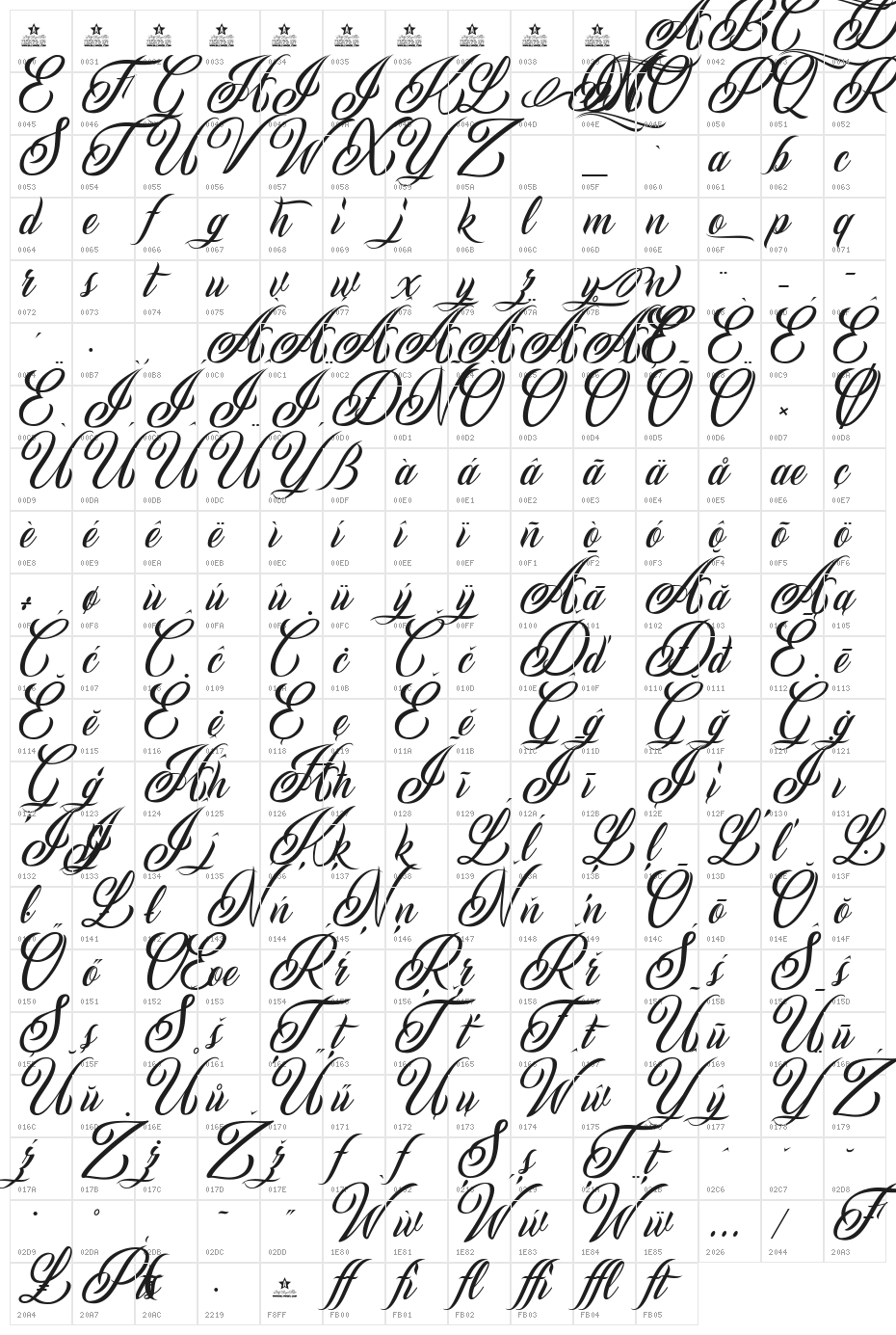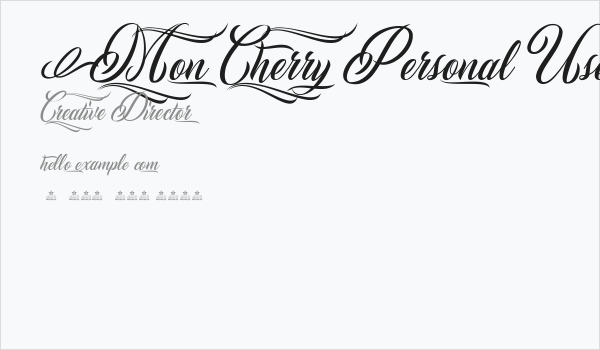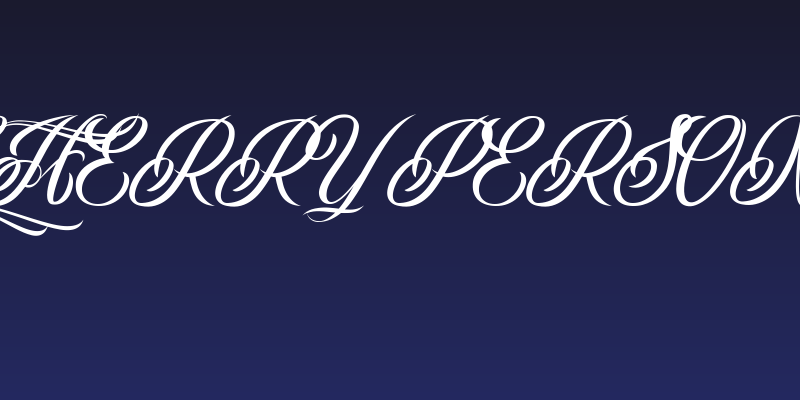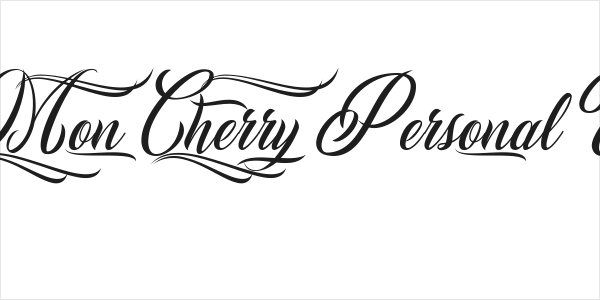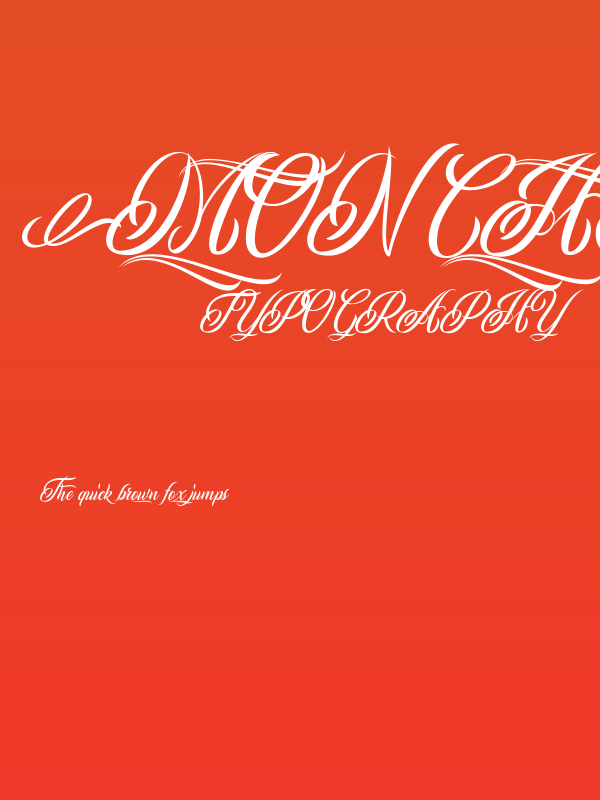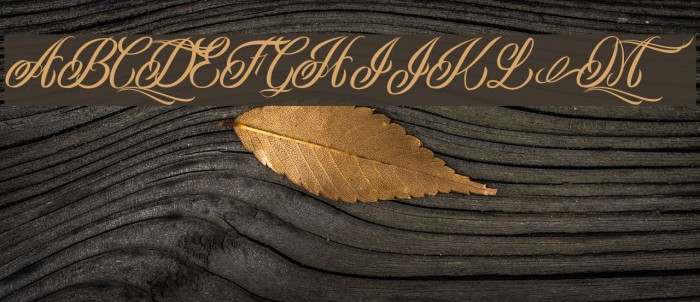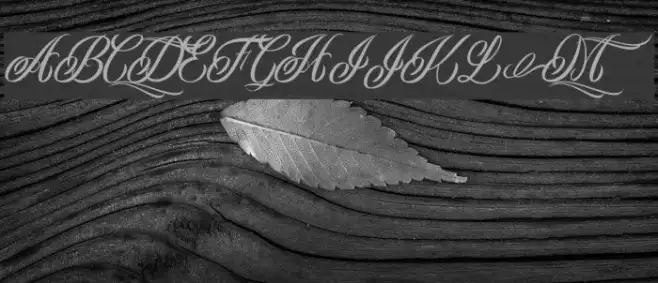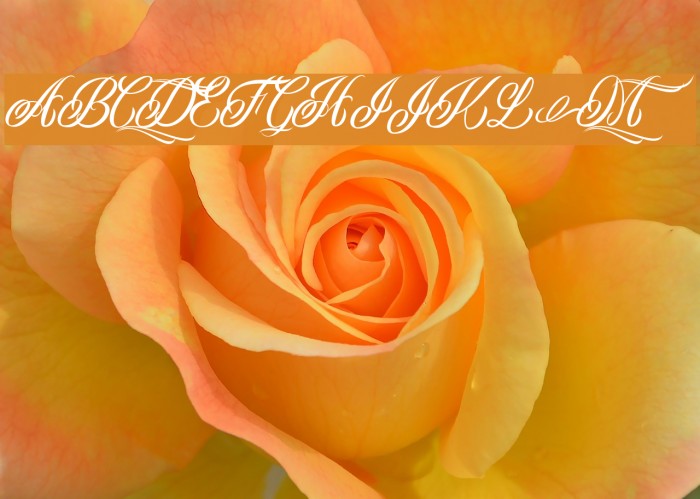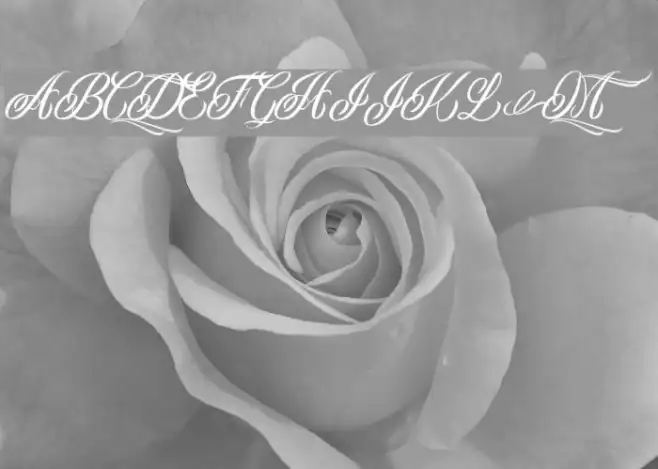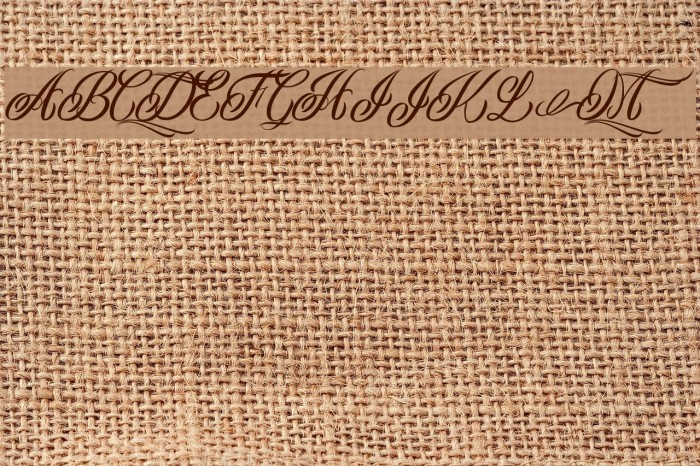
Mon Cherry Personal Use Font
Mon Cherry Personal Use Description
This font features an elegant and flowing script style, characterized by its intricate and decorative letterforms. The uppercase letters exhibit a sophisticated flair with extended swashes and loops, creating a sense of movement and grace. The lowercase letters maintain a consistent fluidity, with smooth connections and a slightly slanted orientation. The overall appearance is both artistic and refined, making it suitable for projects that require a touch of elegance and sophistication. The font's design is reminiscent of classic calligraphy, yet it retains a modern twist, making it versatile for various design applications.
| Proposed Projects | Ideal for wedding invitations, luxury branding, greeting cards, and elegant packaging designs. |